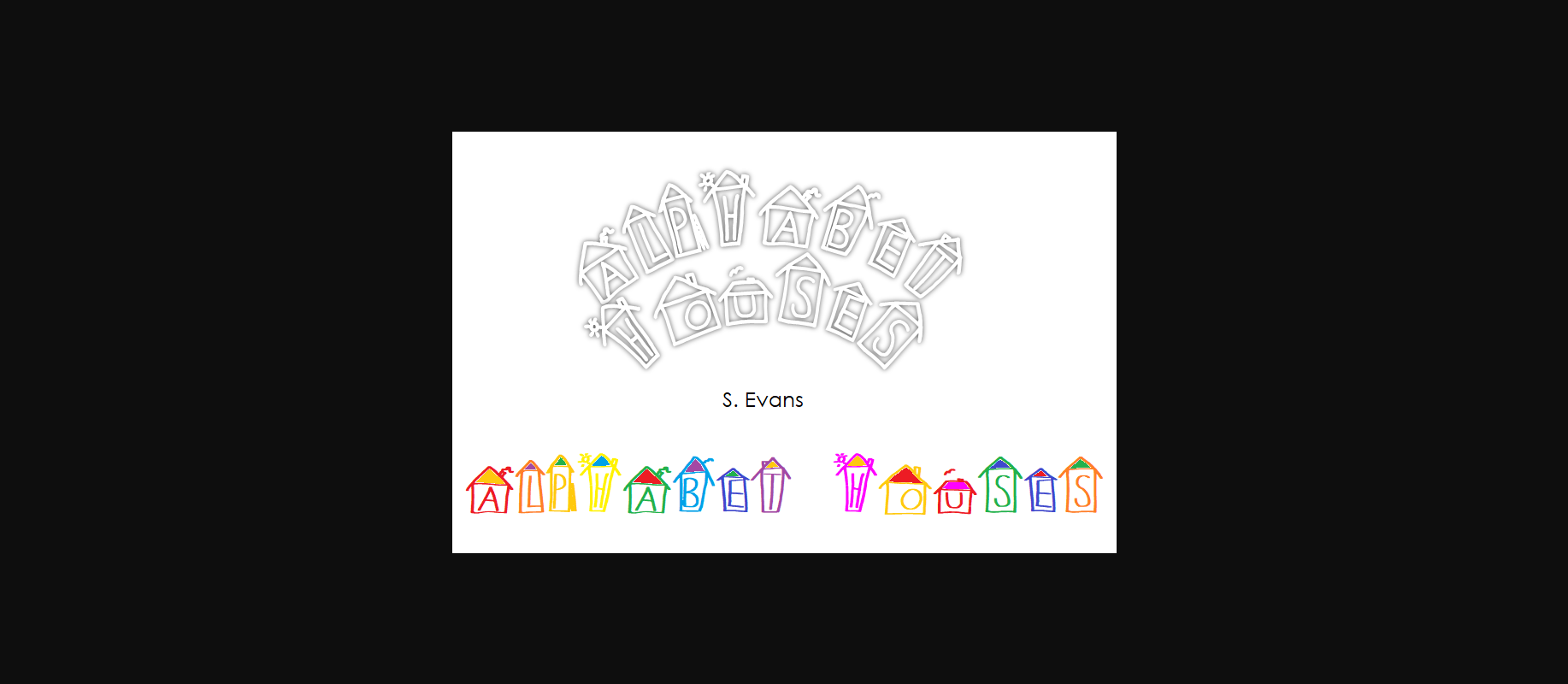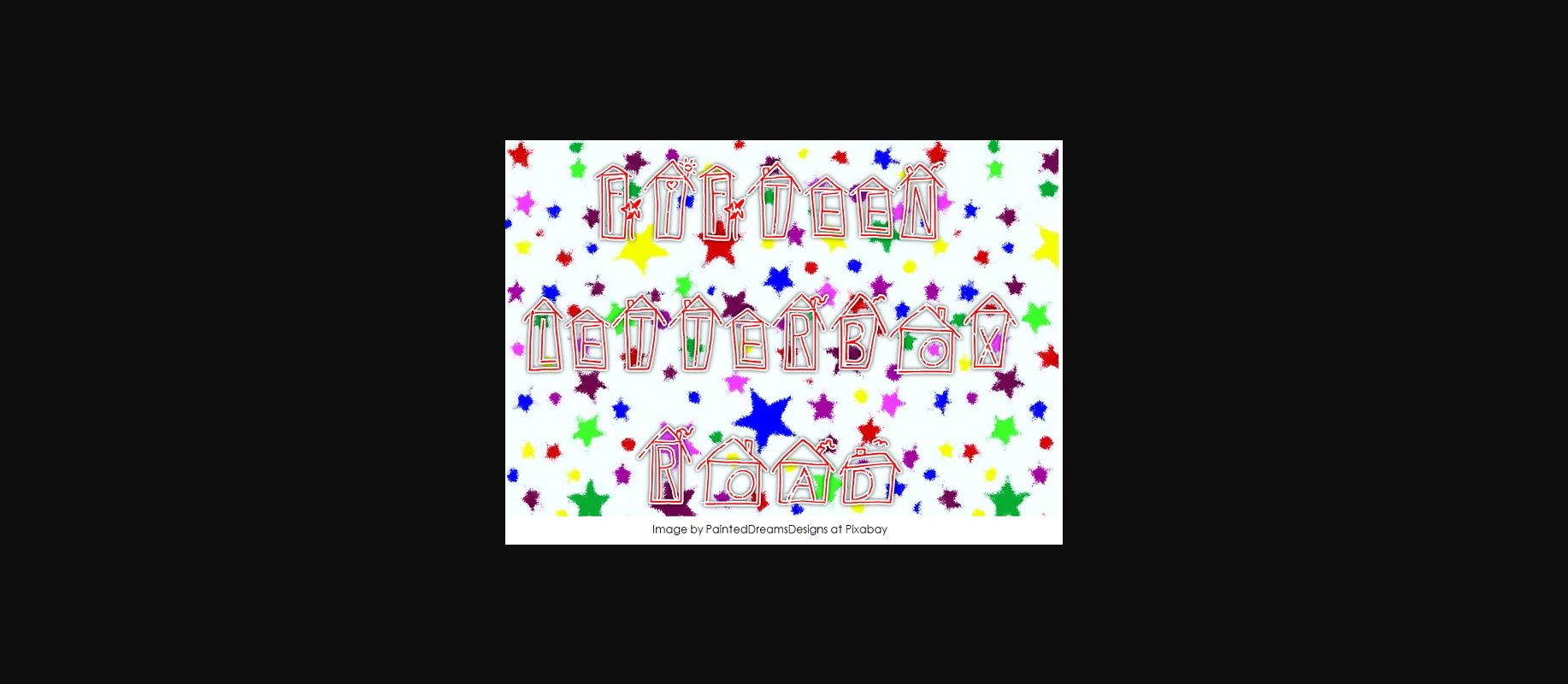
HomeDecorative FontsAlphabet Houses Font Decorative Fonts Alphabet Houses Font FacebookXPinterestWhatsApp 1 of 2 About Alphabet Houses Font Alphabet Houses is a fun, playful and childlike font that will add a lot of colour to any creative project! DOWNLOAD NOW People also explored Magesty Font Minettone Font Marsha Carolline Font Rasty King Font Stella Font Arco Font Queen Bella Font District Font Athnan Font 301 0 TagsAlphabet Houses Font Previous articleSign Language FontNext articleGalactico Font LEAVE A REPLY Cancel reply Comment: Please enter your comment! Name:* Please enter your name here Email:* You have entered an incorrect email address! Please enter your email address here Website: Save my name, email, and website in this browser for the next time I comment. Personal Use Free Wildwest Personal Use Free Read more about this font Leorio Personal Use Free Read more about this font Turpentine Personal Use Free Read more about this font Krait Personal Use Free Read more about this font BLOG Best Fonts for YouTube Videos: Make Your Thumbnails Stand Out Best Fonts for YouTube Videos: Make Your Thumbnails Stand Out Choosing the right font can make a massive difference in how your YouTube videos perform.... The 10 Best Handwriting Fonts to Add Personality to Your Designs 5 Fonts That Will Dominate Design Trends in 2026 How to Install and Use Fonts on Windows, macOS, and Web Projects